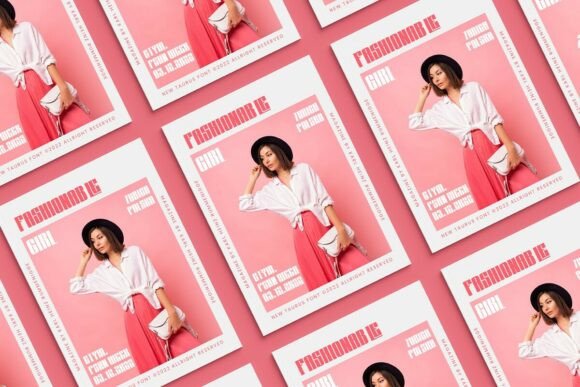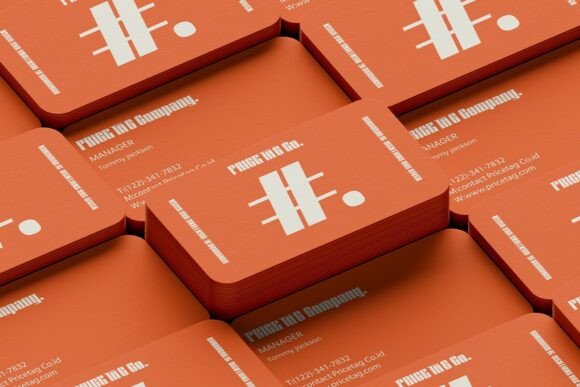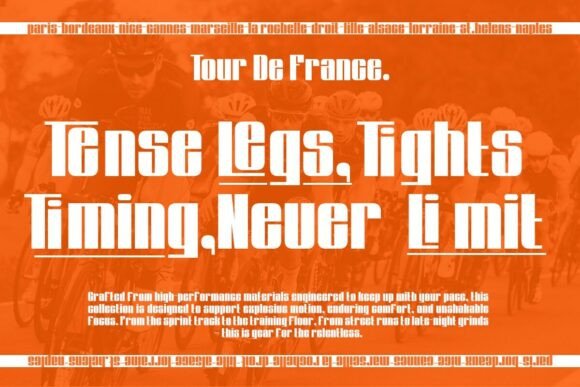
Introduction to New Taurus Font
As designers, we’ve all been there – staring at a blank canvas, trying to bring a concept to life, and desperately searching for the perfect font to make it pop. The struggle is real, but what if I told you that there’s a game-changing solution that can elevate your creative project and leave a lasting impression on your audience? Say hello to the New Taurus Font, a bold sans serif condensed typeface that’s about to revolutionize the way you design.
With its striking, geometric letterform and compressed layout, New Taurus Font is designed to command attention in high-energy, visual-forward designs. Whether you’re working on a music promotion, tech startup, or creative Instagram content, this versatile font is the perfect design resource to add power and edge to your visuals.
What makes New Taurus Font truly valuable for designers is its ability to thrive in a variety of design environments, from urban and sports branding to commercial and tech styles. Plus, with a free download available, you can experience the high quality of this font for yourself and take your creative projects to the next level. And, with its transparent background, you can easily integrate it into your designs without any distractions. Get ready to unleash the full potential of your creative vision with the New Taurus Font.
Key Features of New Taurus Font
- Features a transparent background, making it perfect for use on various design elements
- Designed with a unique blend of modern and classic elements, offering a distinctive look for any project
- Perfect for designers and artists looking for a versatile and stylish design resource for their creative project
Honest Review: New Taurus Font
I recently had the chance to work with the New Taurus Font and I must say it’s been a game-changer for my creative project. The font is available for a free download, which is always a plus in my book.
What works well: ✨ The font has a high-quality design that’s perfect for any creative project. It’s modern, sleek, and has a great aesthetic that instantly elevates the look of any text it’s used with. I also appreciate that it comes with a transparent background, making it easy to use in any design scenario.
However, I do have to mention a few limitations: ⚠️ The font only comes in a few styles, which might limit its versatility in certain projects. Additionally, the font can be a bit too bold for some designs, so it’s essential to use it sparingly.
Overall, I’m impressed with the New Taurus Font and would highly recommend it as a design resource. With its high-quality design and versatility, it’s sure to become a staple in any designer’s toolkit.
Experiment with different font sizes and styles to add depth and visual interest to your design. Use the New Taurus Font in combination with other design elements to create a unique and eye-catching design.
The New Taurus Font is perfect for logos, business cards, brochures, and any other design project that requires a high-quality, creative font.
The Pacifico Font is a modern script font with a relaxed, beachy vibe, making it perfect for designing projects related to travel, leisure, or outdoor activities. It’s also a great choice for creating a friendly and approachable tone in your design.
Pacifico Font is similar to New Taurus Font in its modern and bold feel, but it has a more laid-back and casual tone, making it suitable for projects that require a friendly and approachable vibe.
Whether you’re a seasoned designer or just starting out, the New Taurus Font is an invaluable addition to your design arsenal. Its unique style and high-quality design make it a standout choice for any creative project. So why wait? Download the New Taurus Font today and discover a new level of design freedom and creativity!